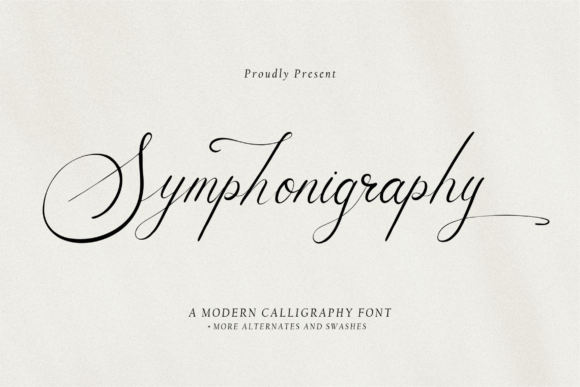
Welcome to the world of Symphonigraphy, a script font family that captivates with its alluring charm and sophisticated elegance. With its graceful curves and flowing lines, Symphonigraphy brings a touch of timeless beauty to any design project.
Step into a realm of boundless creativity, where Symphonigraphy becomes your trusted companion in crafting stunning wedding invitations, heartfelt thank-you cards, inspiring quotes, and heartfelt greeting cards. Its versatility extends to captivating logos and professional business cards, adding a touch of elegance to your branding endeavors.
Effortlessly access the full spectrum of Symphonigraphy's glyphs and swashes, thanks to its PUA encoding. Unleash your imagination as you explore the infinite possibilities, adding intricate details and flourishes that make your designs truly shine.
Symphonygraphy is more than just a font; it's an expression of your unique style and an extension of your creativity. Its versatility knows no bounds, making it the perfect choice for a wide range of design projects, from personal to professional. Discover the endless possibilities with Symphonigraphy and let your creativity soar.